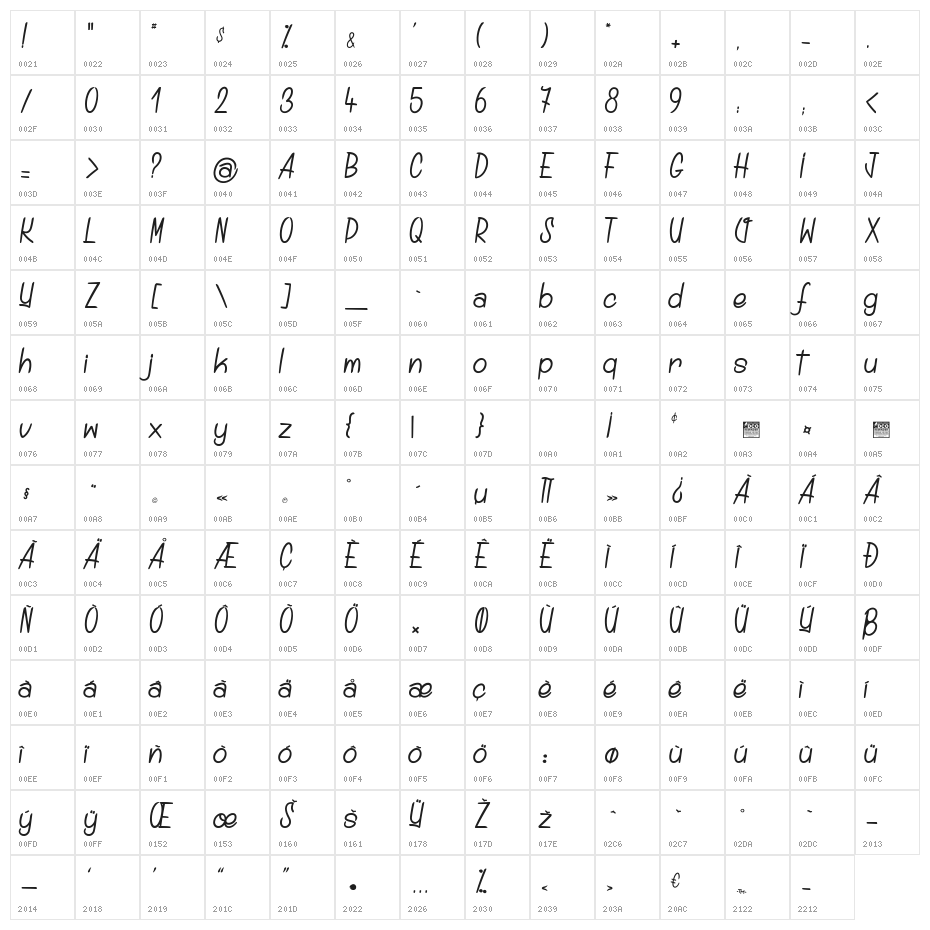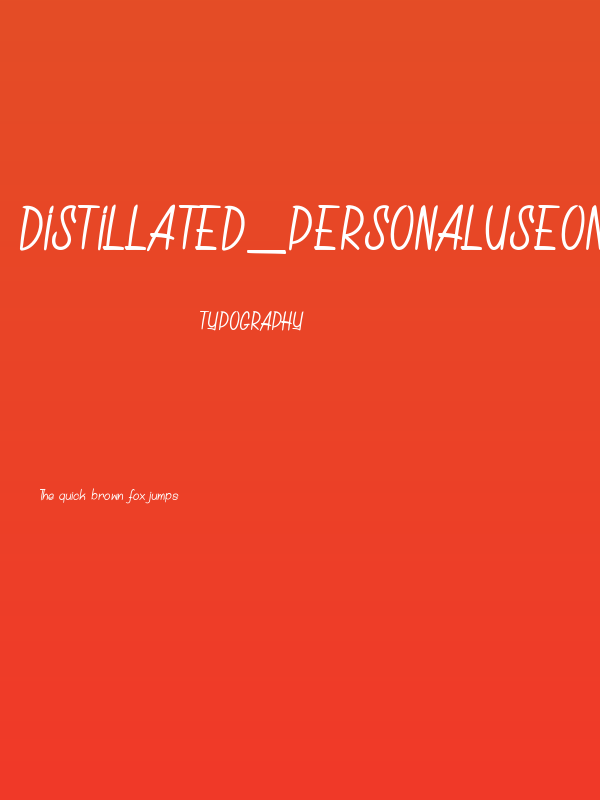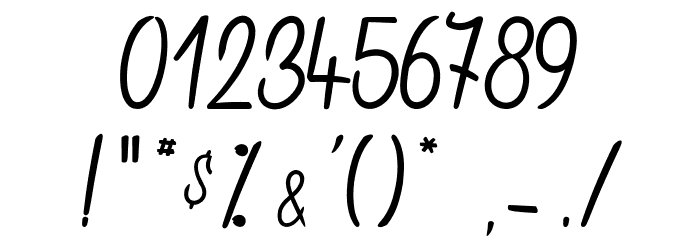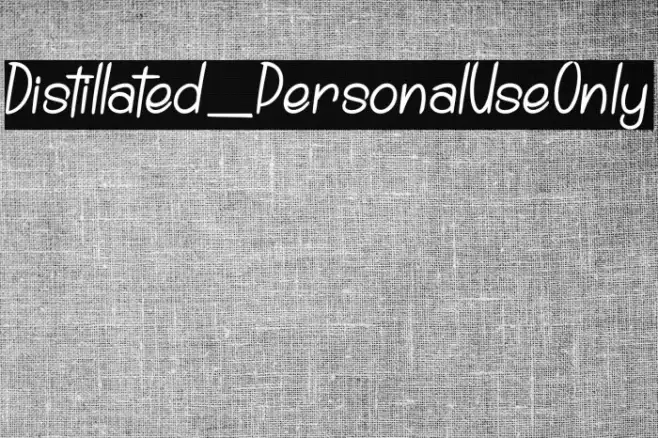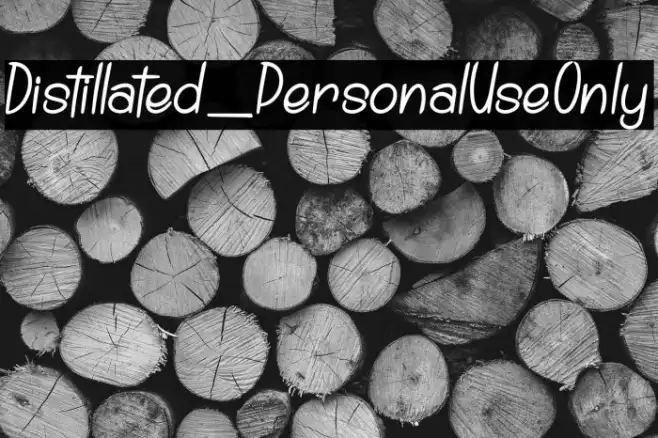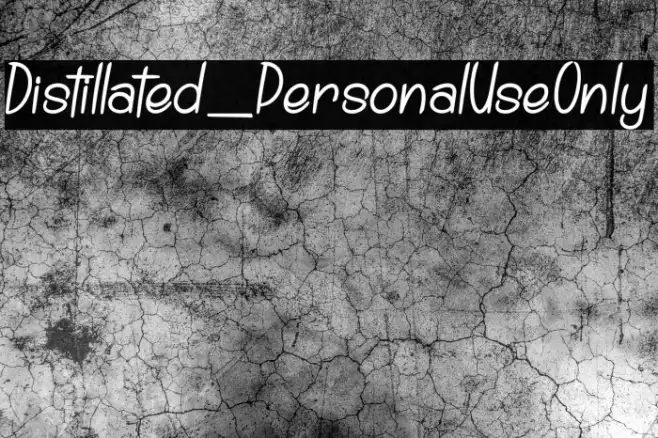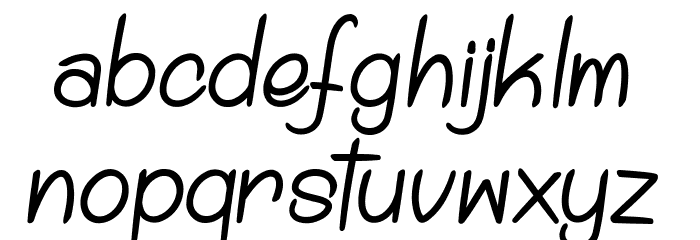
Distillated_PersonalUseOnly Font
Distillated_PersonalUseOnly Description
This font features a playful and casual handwritten style, characterized by its smooth, flowing lines and slightly irregular shapes. The uppercase letters are tall and narrow, while the lowercase letters maintain a consistent height, giving the font a cohesive look. The numbers and special characters follow the same informal and friendly design, making it suitable for projects that require a personal touch. The strokes are consistent in thickness, providing a balanced appearance. Overall, this font exudes a sense of approachability and creativity, perfect for adding a human element to any design.
| Proposed Projects | Ideal for greeting cards, invitations, personal branding, and creative projects that require a friendly and approachable feel. |